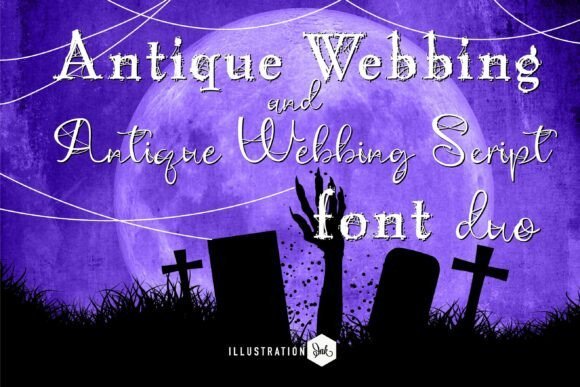
Unravel the Mystery of Antique Webbing Duo Font
Have you ever found yourself lost in a world of fonts, searching for the perfect combination to bring your design to life? It’s a feeling that many designers know all too well. For me, it was a late night spent scrolling through font libraries, when suddenly, a peculiar font caught my eye. Its name was Antique Webbing Duo Font, and it was unlike anything I had ever seen before.
As I delved deeper into the world of Antique Webbing Duo Font, I discovered that it was a hand-crafted font duo that combined a serif with a hand-written script, all covered in creepy webs. With 13 family members combined, this font duo offered endless possibilities for designers. Its unique blend of formal and informal elements made it the perfect addition to any design project, adding a touch of whimsy and nostalgia that was hard to resist.
For designers, the Antique Webbing Duo Font is a treasure trove of creative possibilities. Its hand-crafted nature and unique blend of styles make it an invaluable tool for adding a personal touch to any design. Whether you’re working on a corporate document or a casual invitation, this font duo is sure to bring your project to life in a way that’s both memorable and impactful.
- Unique Characteristics: This font features a distressed, vintage aesthetic, with intricate webbing patterns and ornate details, perfect for adding a touch of elegance and sophistication to designs.
Designer Review: Antique Webbing Duo Font
I recently had the chance to work with the Antique Webbing Duo font, and I must say it’s a unique addition to any design project. ✨ The intricate web-like patterns and distressed texture evoke a sense of nostalgia and elegance, perfect for creating a vintage-inspired aesthetic. ✨ The font’s versatility allows it to work well in both display and body text settings.
Here are some key features that I appreciated:
- ✨ Distressed texture adds depth and visual interest
- ✨ Intricate web-like patterns create a sense of complexity
- ✨ Suitable for both display and body text settings
- ⚠️ Limited character set, which may be a concern for extensive text-based projects
- ⚠️ May require additional formatting to achieve optimal readability
- ⚠️ Not suitable for all types of content (e.g., technical or scientific writing)
Overall, I think the Antique Webbing Duo font is a great choice for designers looking to add a touch of elegance and sophistication to their projects. While it may have some limitations, its unique features make it a valuable addition to any font library.
Tips for Getting the Most Out of Antique Webbing Duo Font
For optimal results, use Antique Webbing Duo Font in combination with distressed or vintage textures and color schemes.
Antique Webbing Duo Font is commonly used for:
• Vintage-inspired designs
• Distressed or worn textures
• Retro-themed branding
• Creative quotes and phrases
What is the recommended font size for using the Antique Webbing Duo Font?
The Antique Webbing Duo Font is designed to be versatile and can be used at a wide range of font sizes. However, for optimal readability, we recommend using font sizes between 14px and 36px. This will ensure that the font looks its best and is easy to read on various devices and screen sizes.